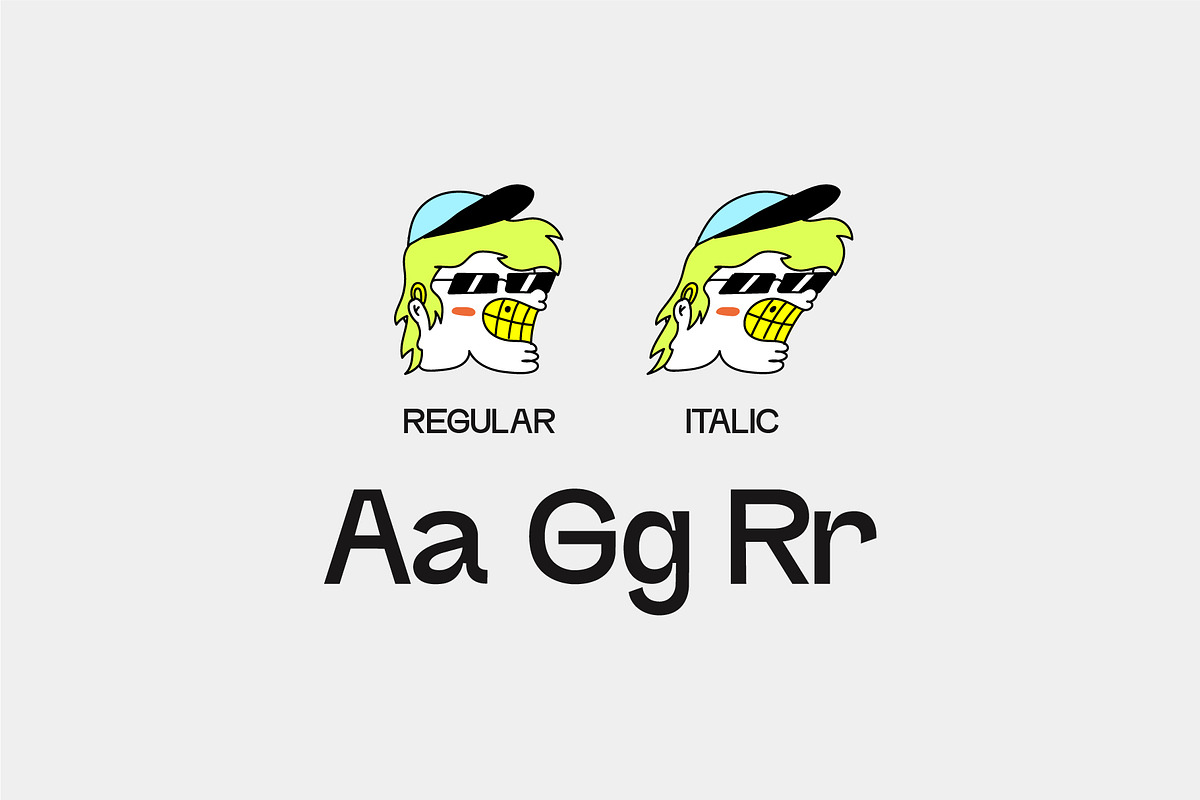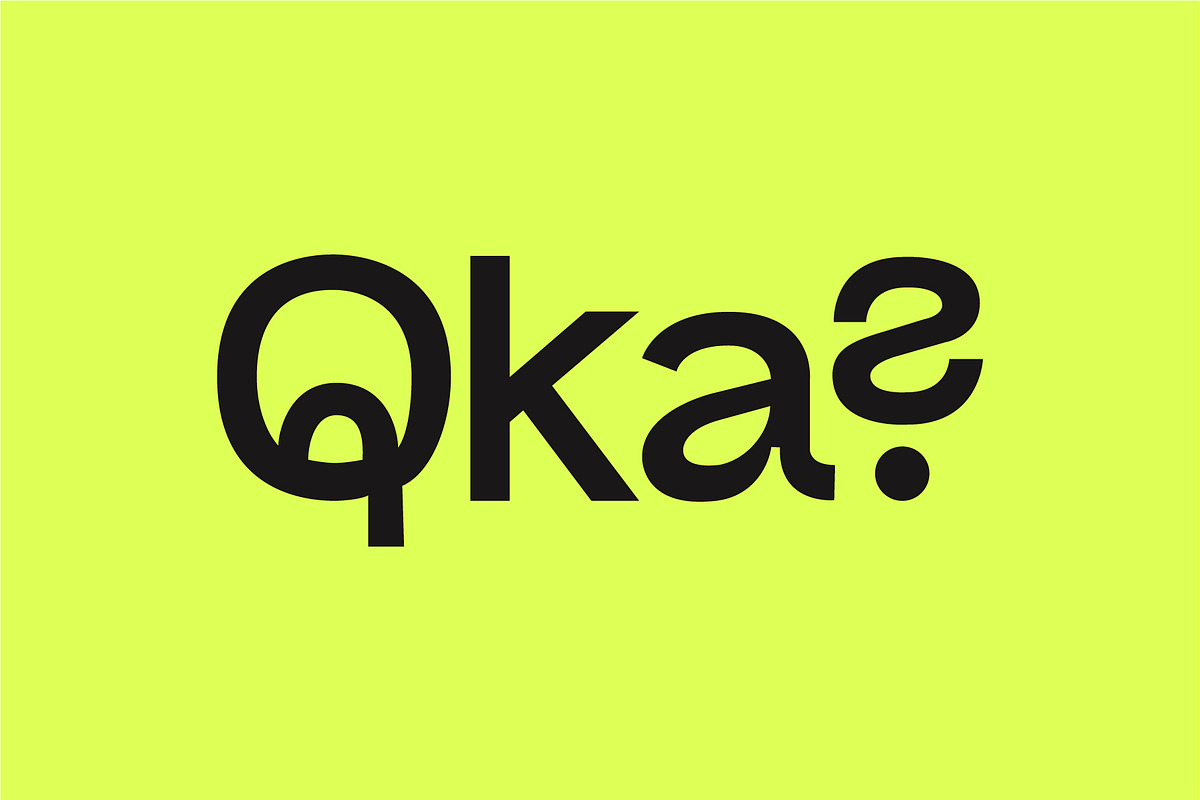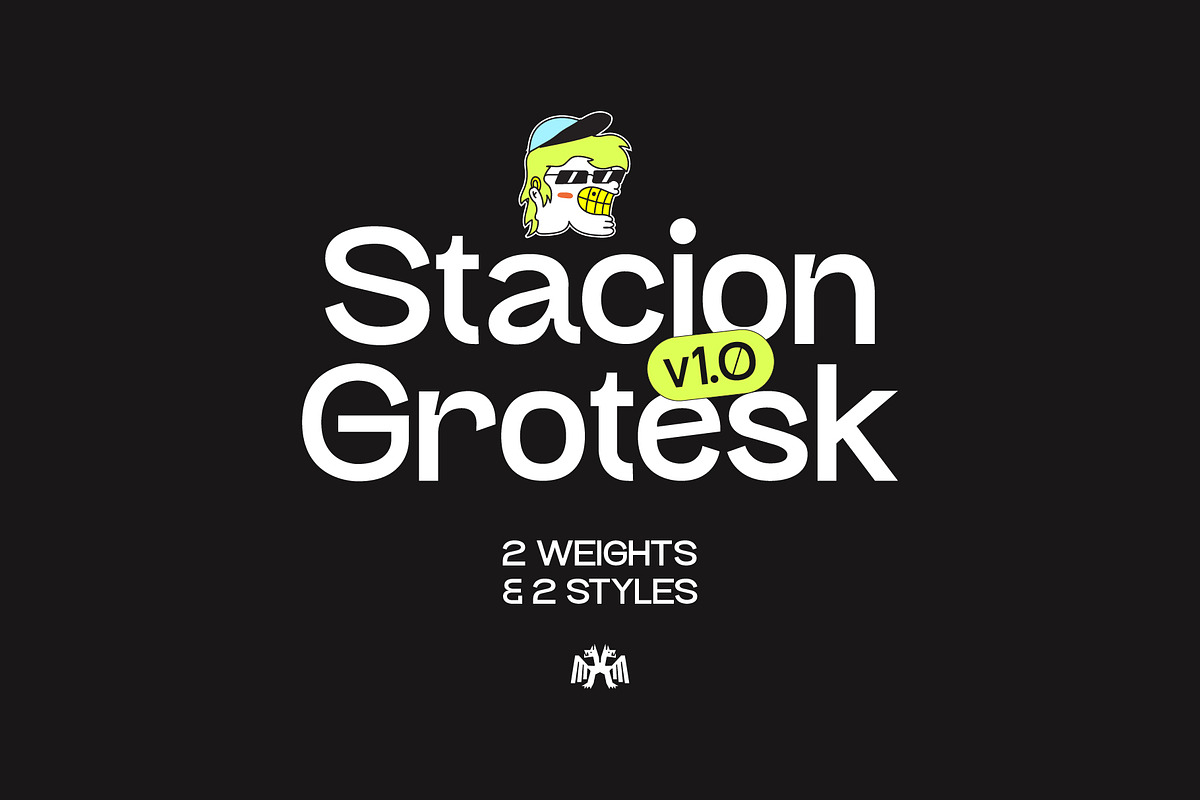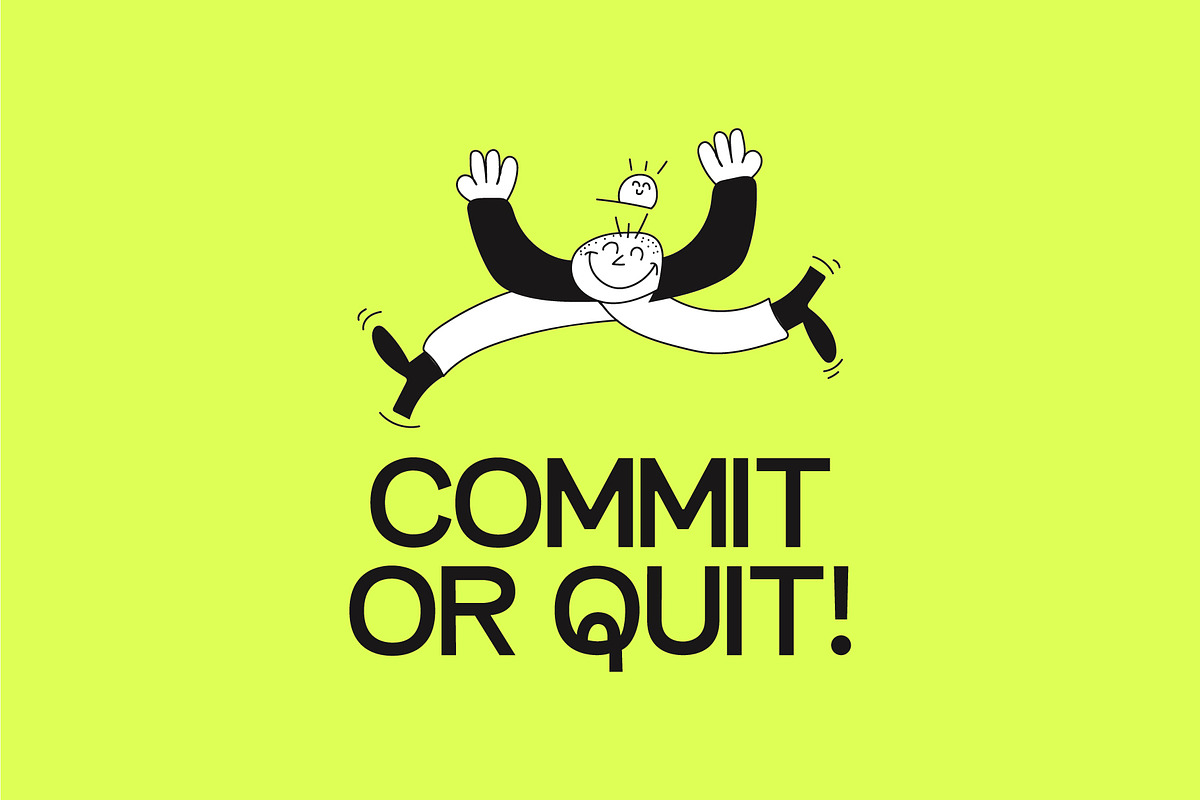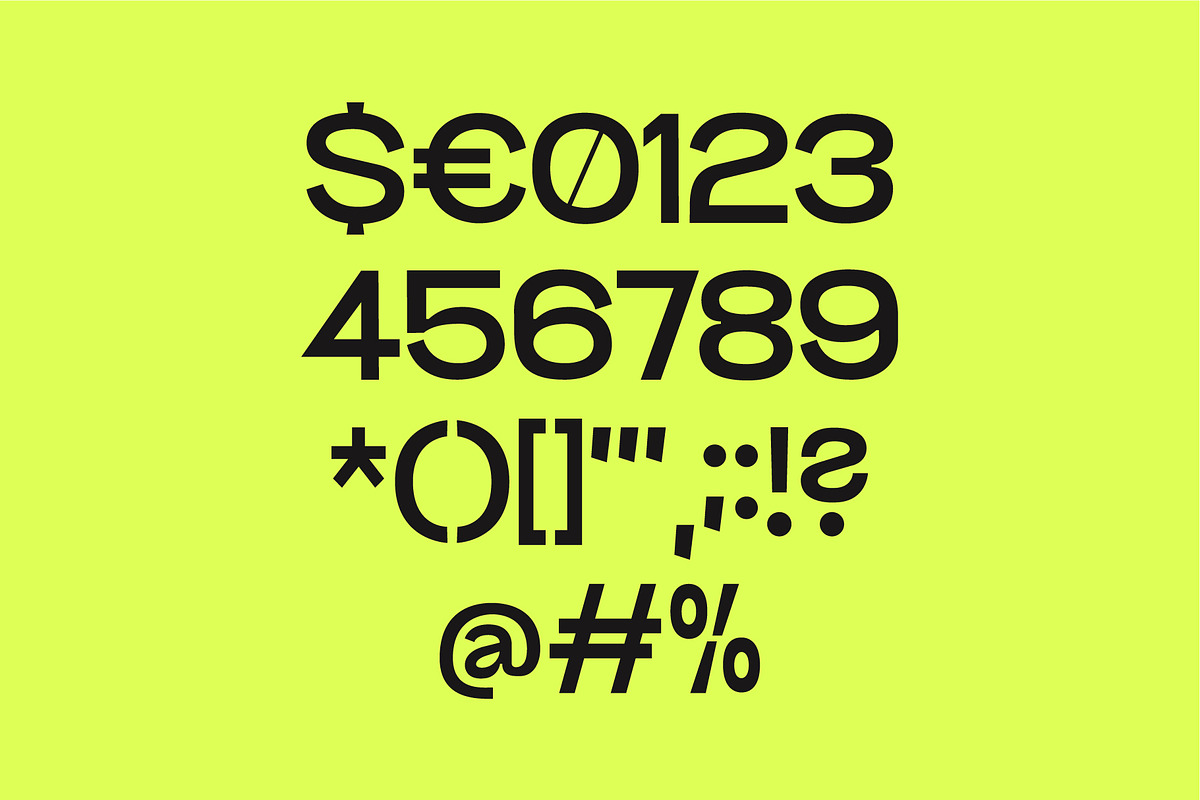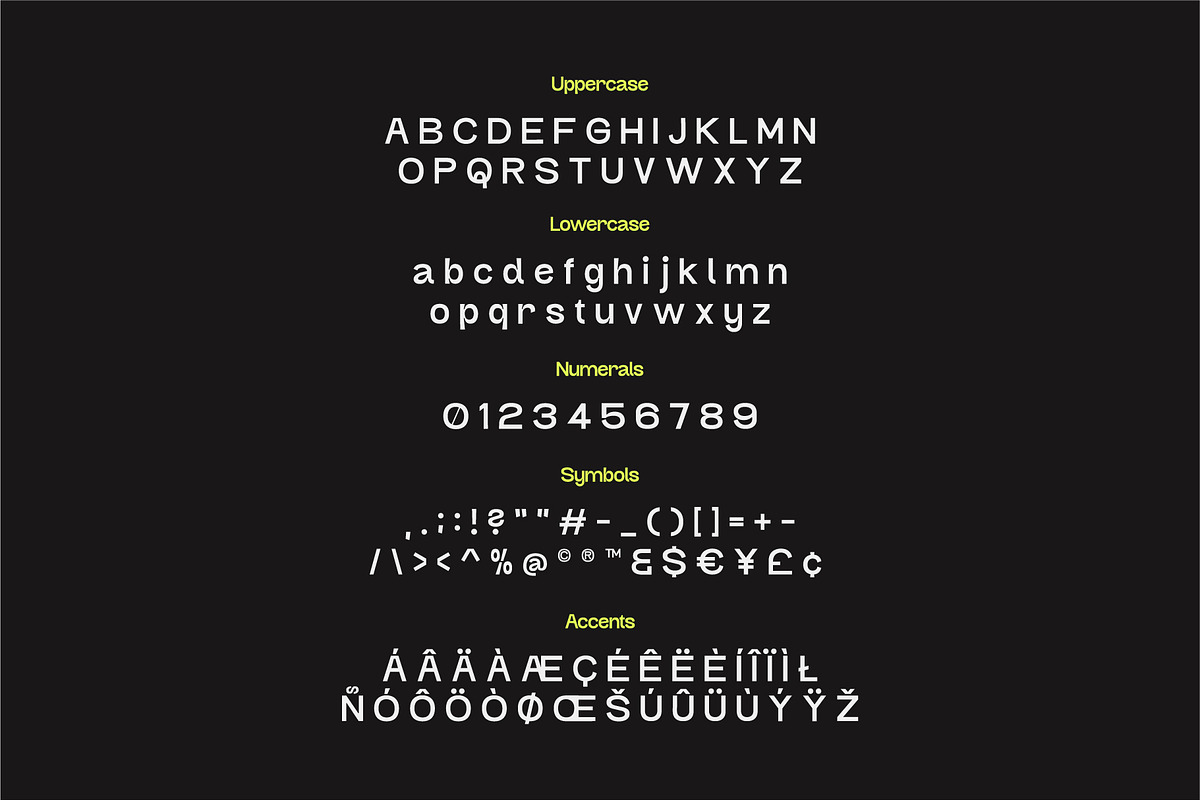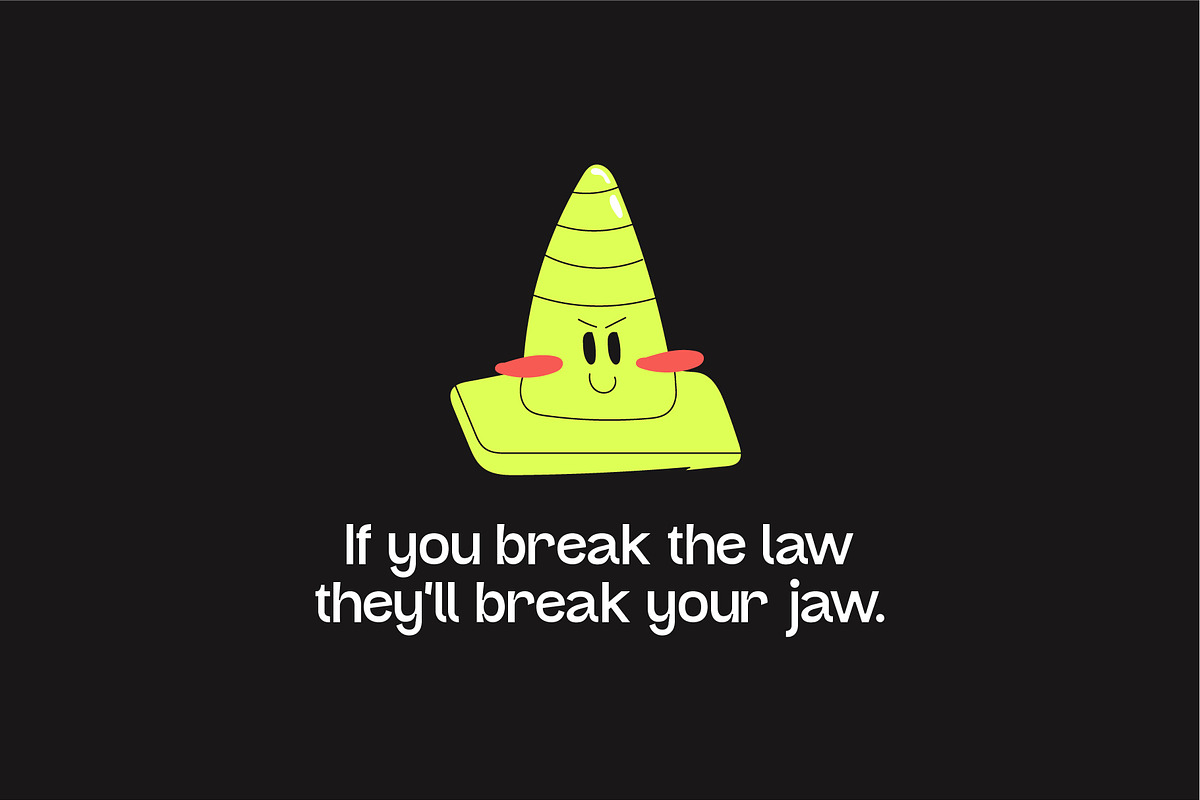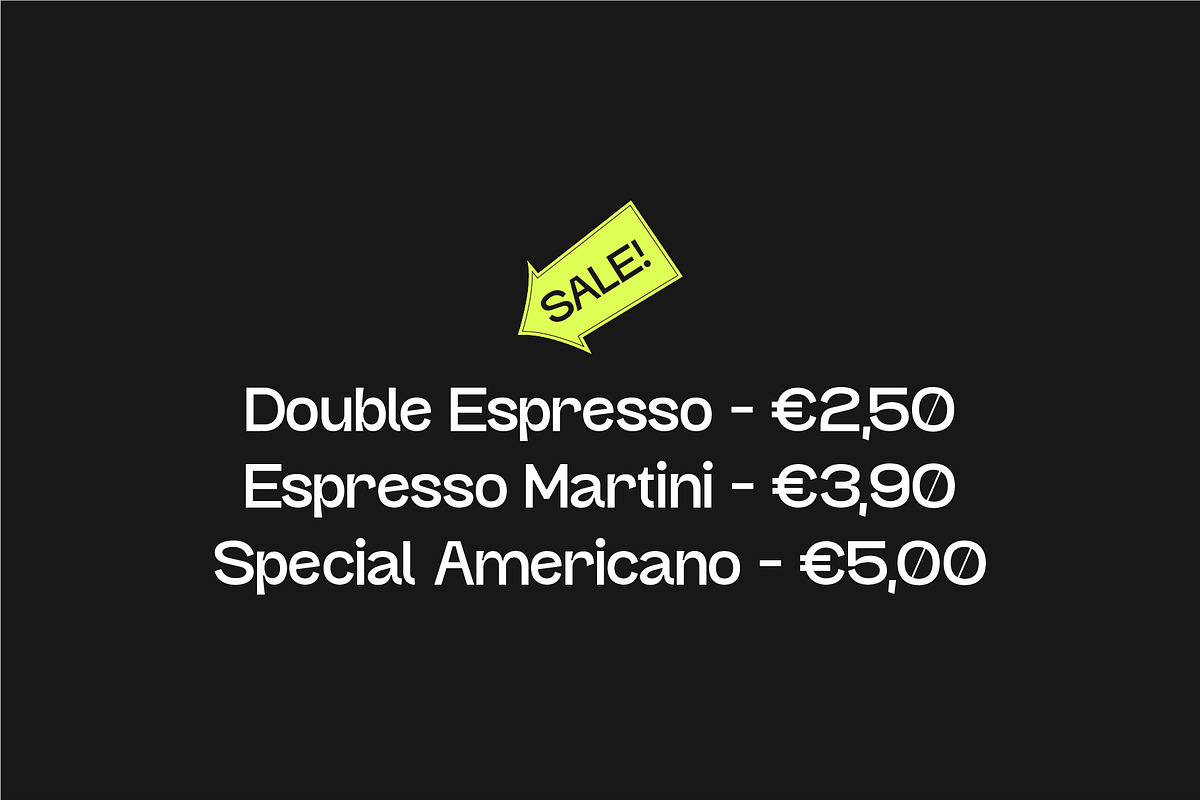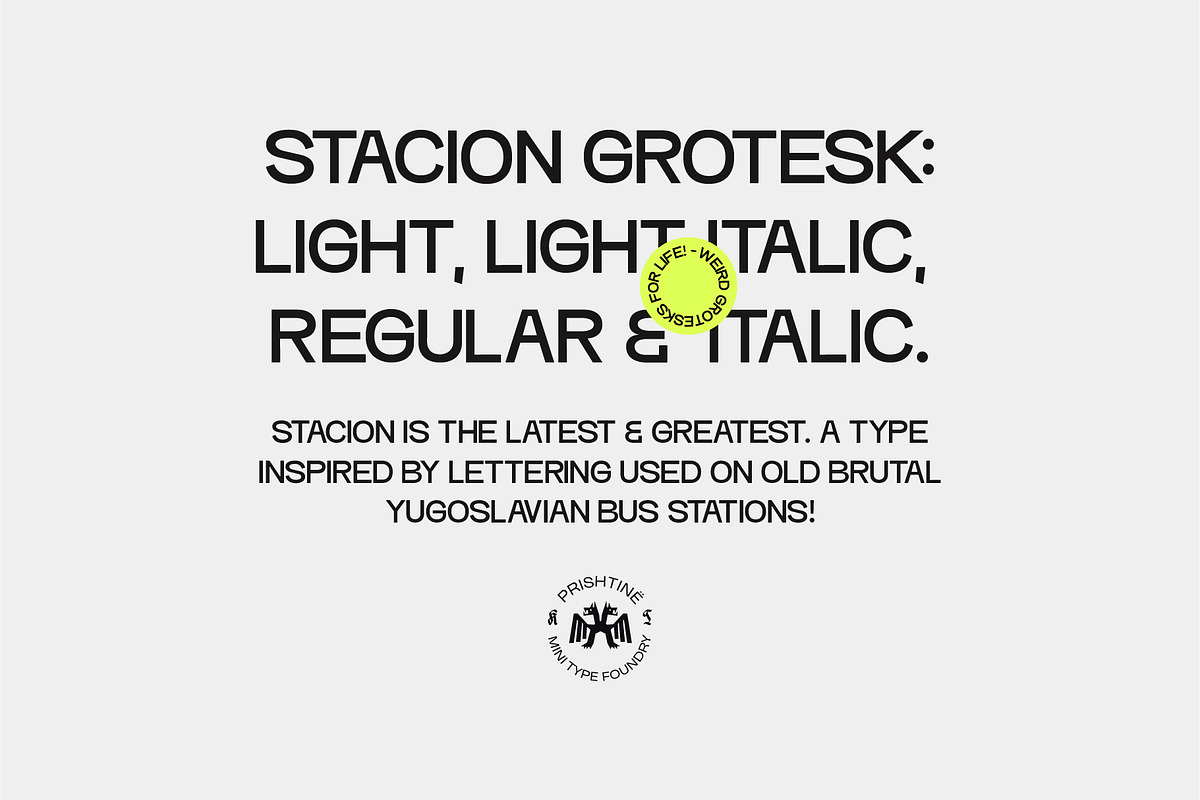
Stacion - Grotesk Type
Stacion Grotesk is the latest funky type that just got cooked up in the oven. A type with a fun character, playful glyphs and some unique details.
Inspired by Brutalist Bus Stations in the Yugoslavian Era, this type can very well be called weird.
Weird is always interesting. Available in Light, Regular + Italics.